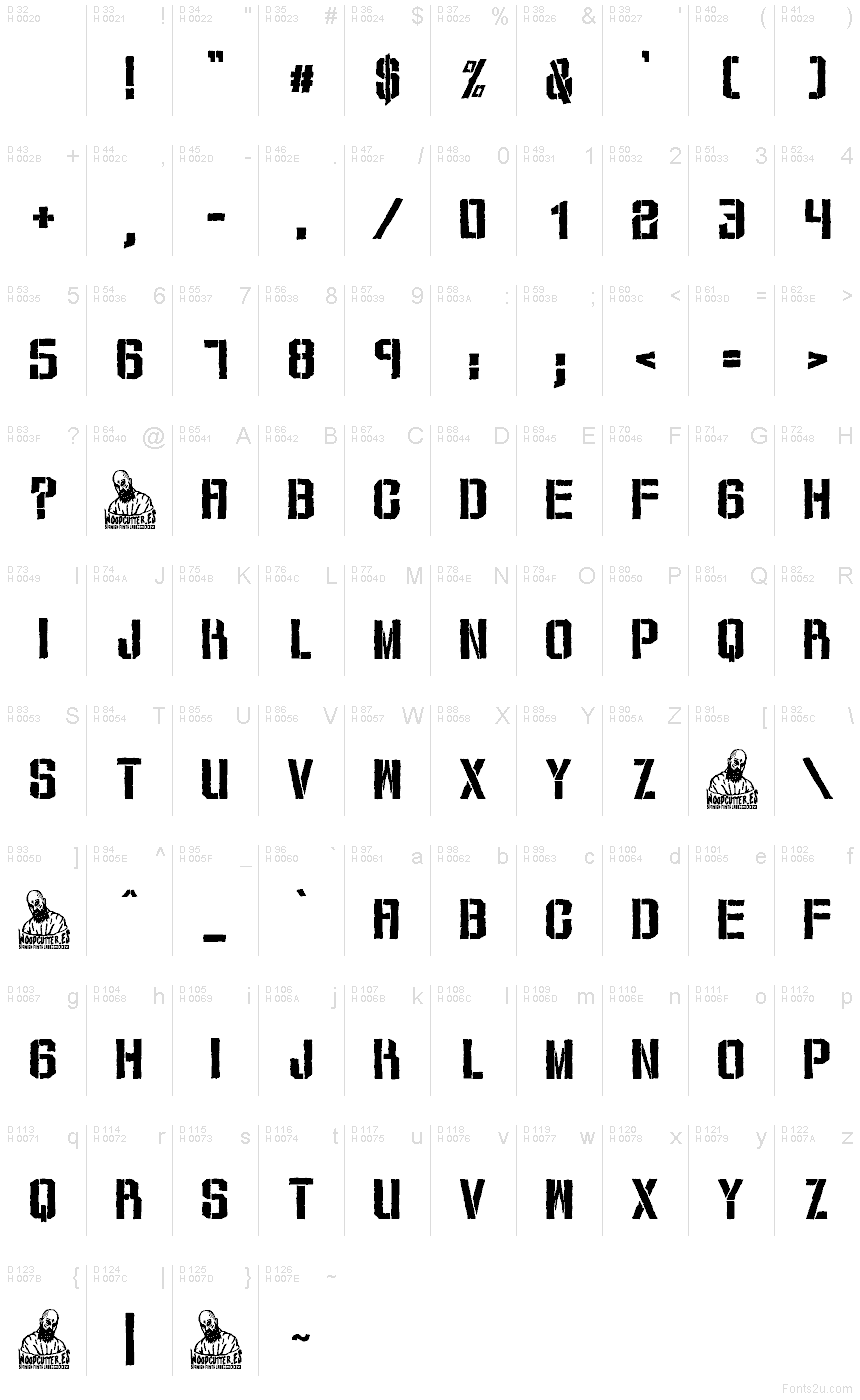
Memories Stencil
Memories Stencil font, a display font by Woodcutter, carries all the various features of militaristic and technical stencil letters. The condensed font holds a grungy texture that can allow your texts to express more than just words. And to remove the melancholy feel most stencil fonts present, this one presents an industrial and rugged quality.